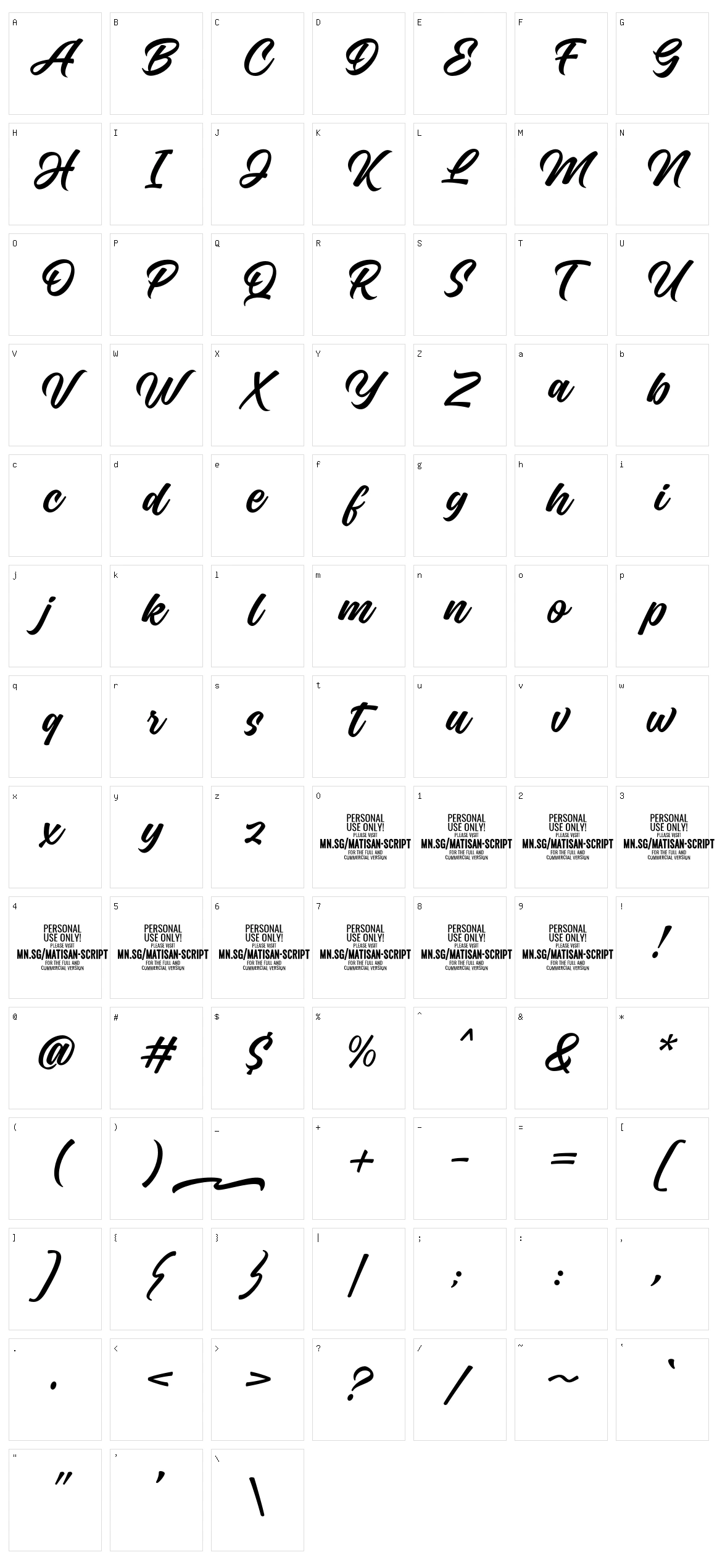
Matisan Script is a contemporary take on traditional calligraphy.
Crafted with a keen eye for aesthetics, Matisan Script flows effortlessly across the page, its thick and thin strokes creating a visual rhythm that's both beautiful and impactful.
The design of Matisan Script is characterized by its bold, yet delicate, brush strokes, imparting a sense of dynamism and motion. Its expressive quality lends itself well to various applications, whether it's an elegant invitation, a striking logo, or a personal project that calls for a touch of beauty and sophistication.
Use one or multiple underscores _ anywhere in a word to make a swash.
Example: Ma_ster Wonder____woman
The font is built with advanced OpenType functionality and guaranteed top-notch quality, containing stylistic and contextual alternates, ligatures and more automatic and manual features; all to give you full control and customizability. It has extensive lingual support, covering all Latin-based languages, from North Europa to South Africa, from America to South-East Asia. It contains all characters and symbols you'll ever need, including all punctuation and numbers.
Created with passion and precision, Matisan Script is more than just a font; it's a testament to the beauty of modern calligraphy, designed to bring your creative visions to life.